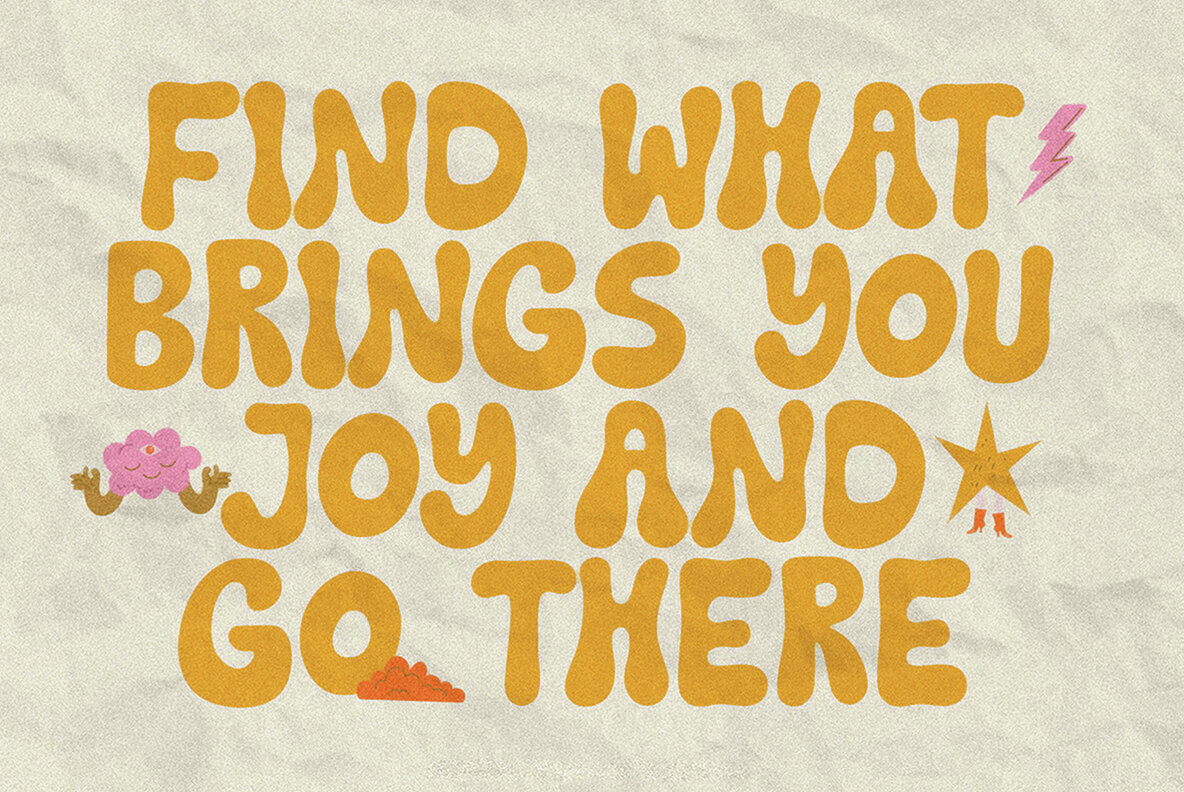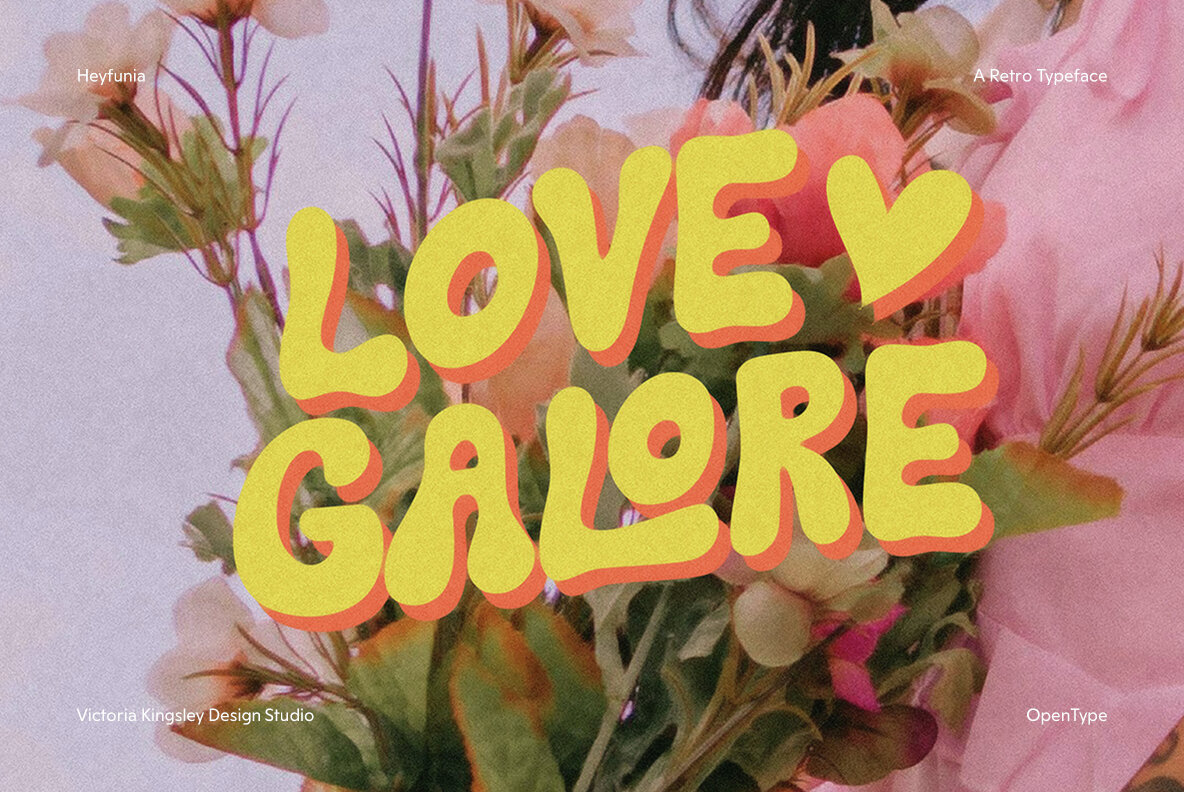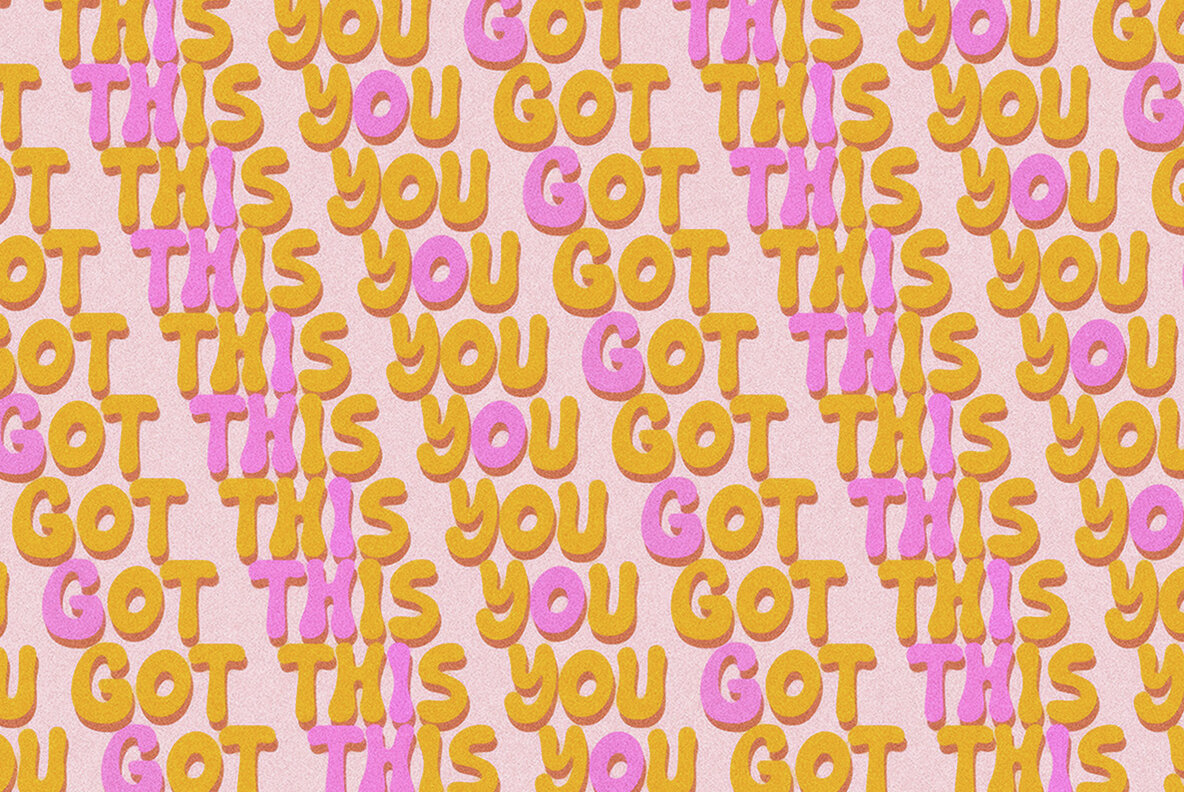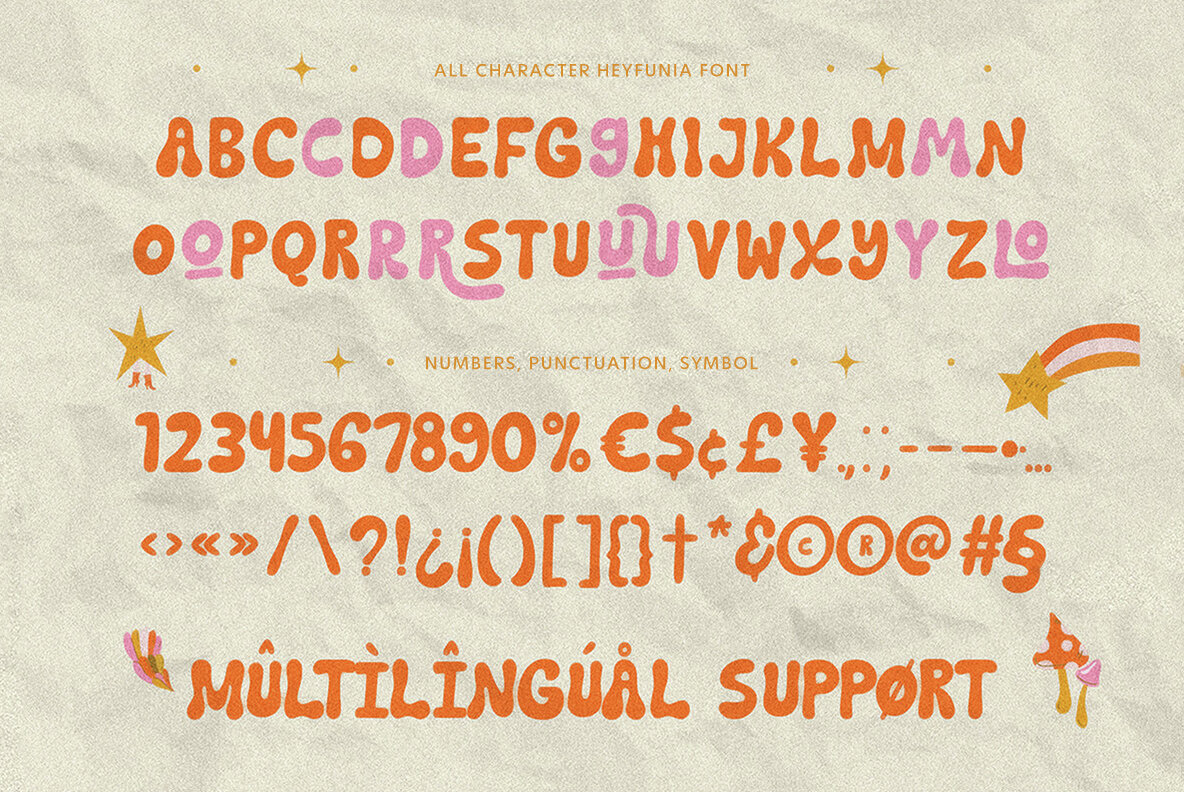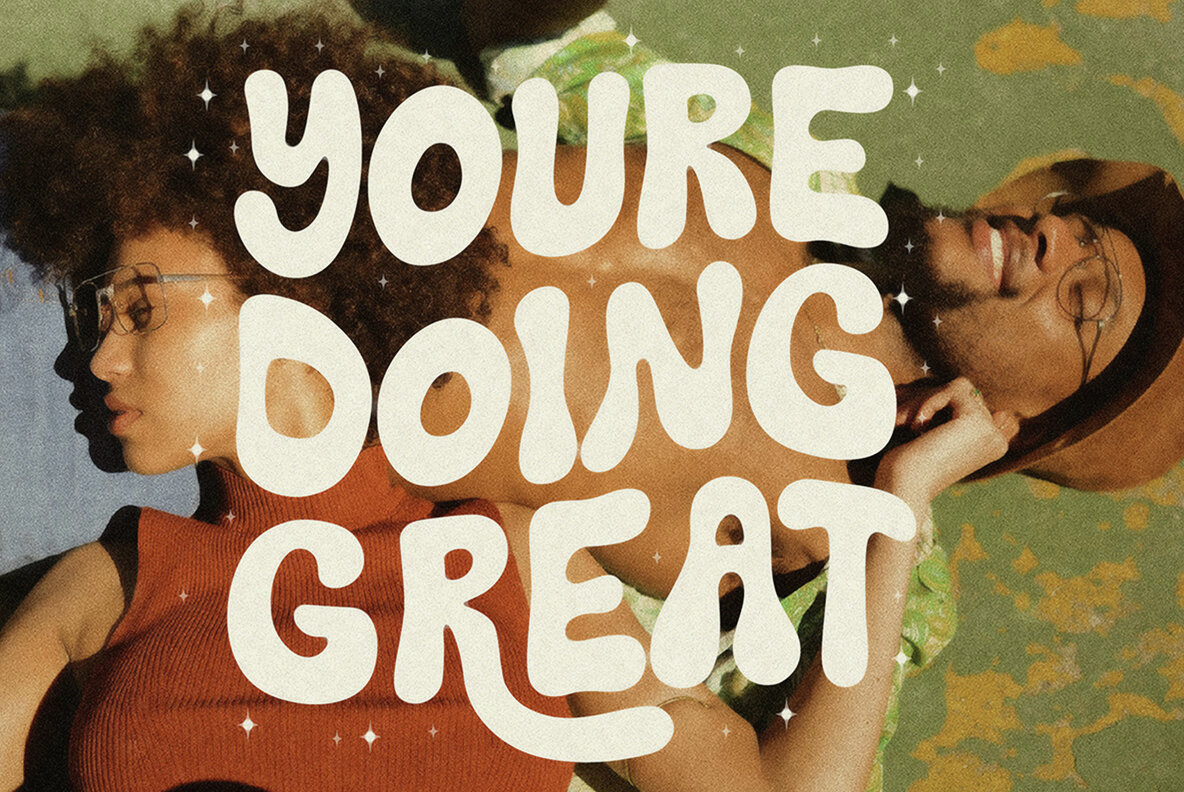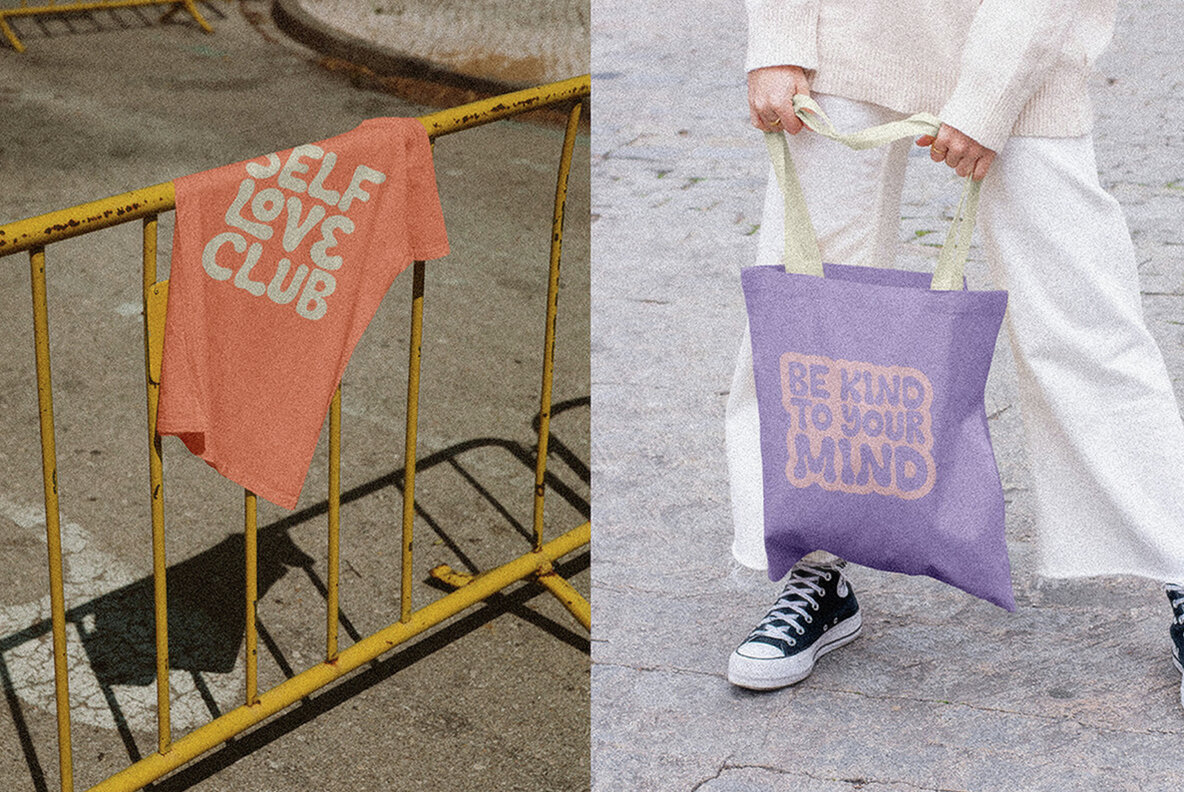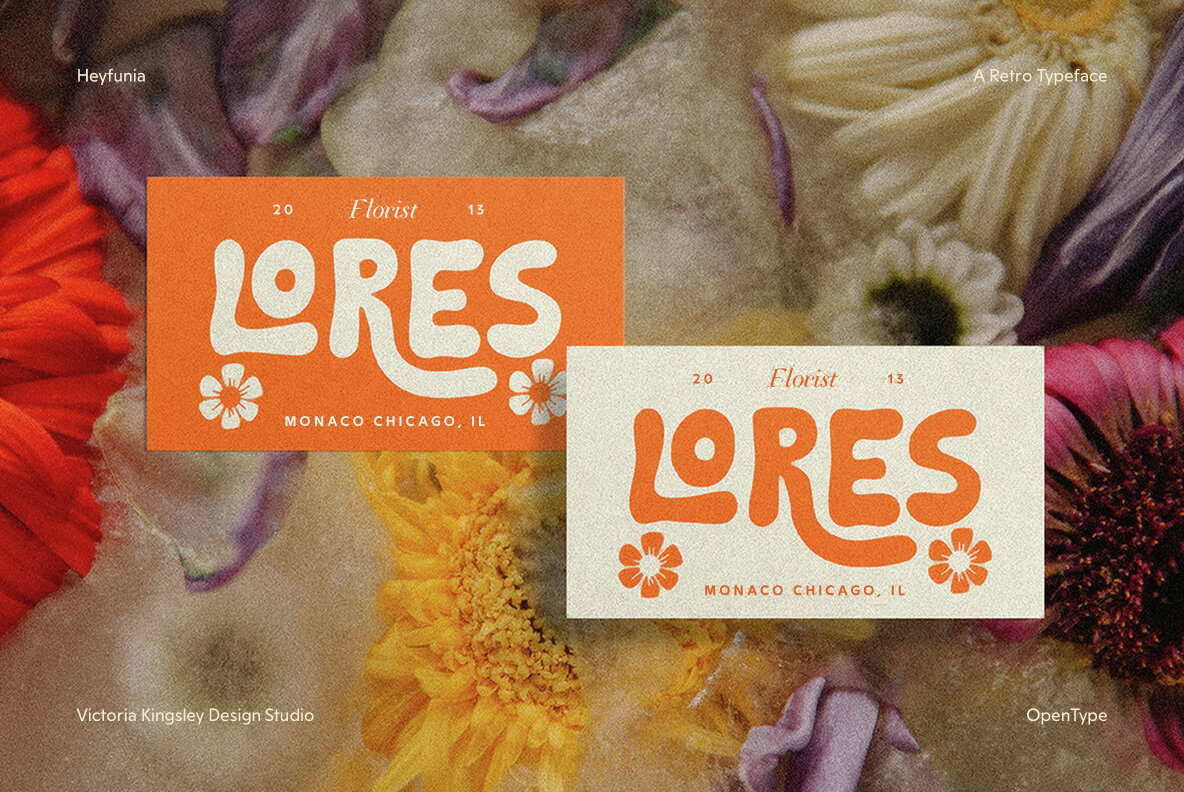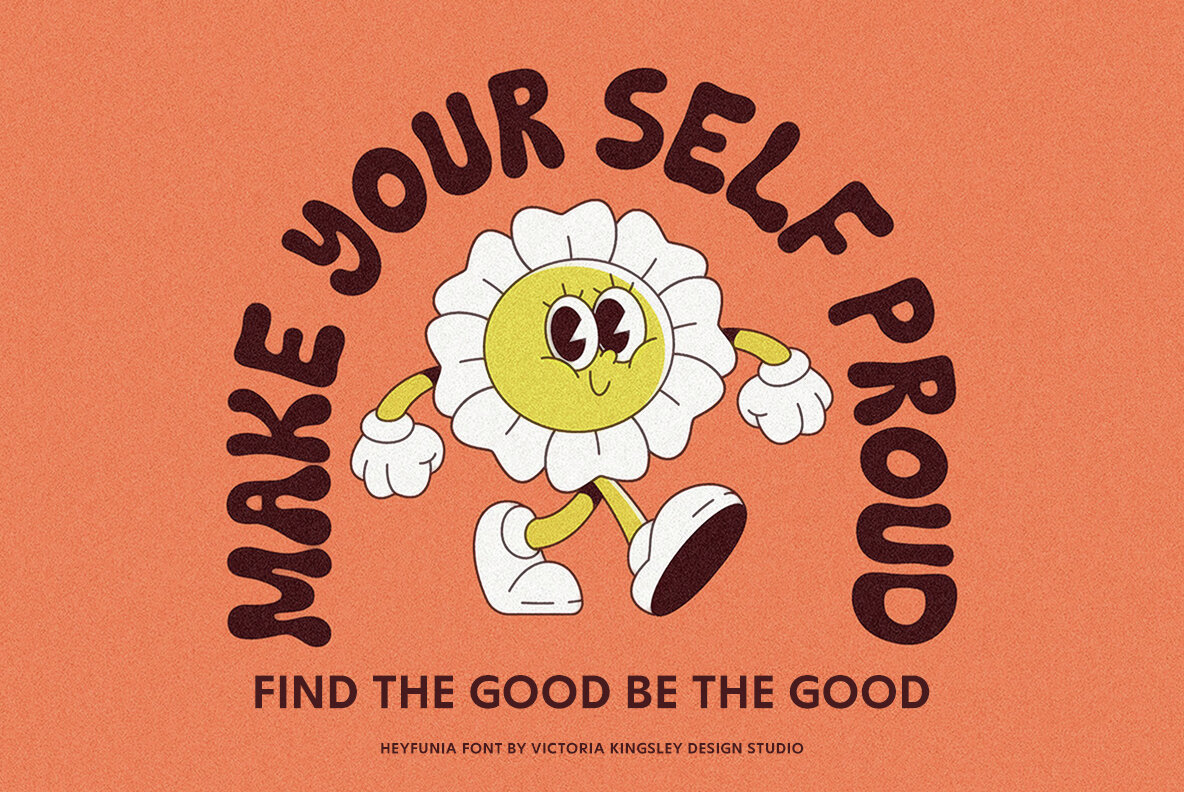
Heyfunia Font
Heyfunia
Step back into the vibrant world of the 1960s and 1970s with Heyfunia, a display font that exudes the bohemian and psychedelic vibes of the era. Heyfunia's engaging design brings a liquid charm reminiscent of the '70s, providing a unique twist with its quirky alternates and ligatures. Whether you're channeling the retro spirit for cosmetics or fashion, this font infuses each project with undeniable groove and character.Heyfunia: Retro Display Font for Groovy Designs
Designed exclusively for YouWorkForThem, Heyfunia boasts over 200 glyphs and a plethora of OpenType features that enrich your design experience. With discretionary ligatures, stylistic alternates, and bespoke stylistic sets, this font is a spirited choice for cosmetic brands and outdoor tropical styles. Perfect for capturing the playful essence of hippie culture, it also makes a bold statement on clothing branding.Features